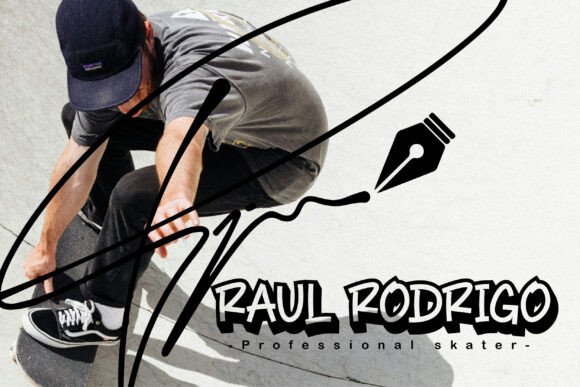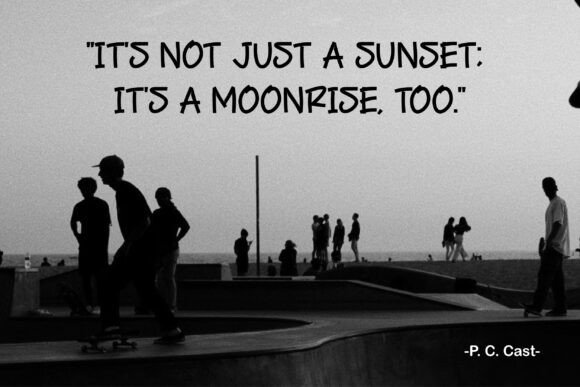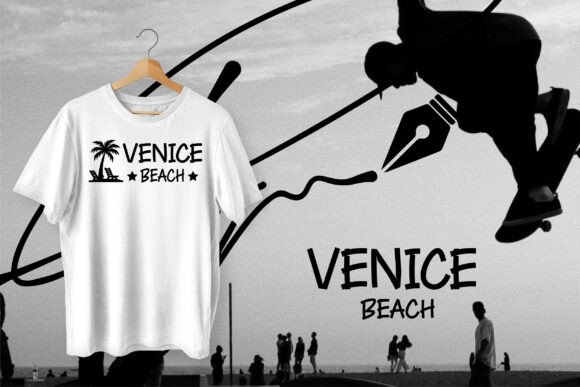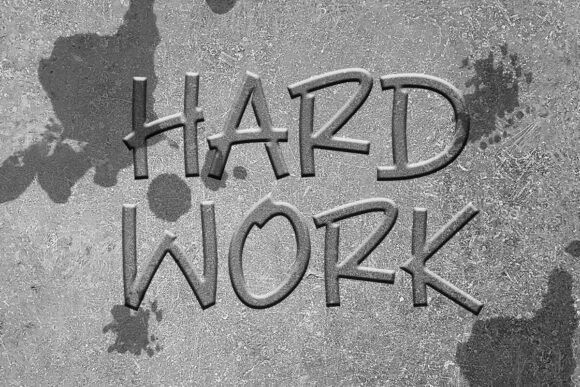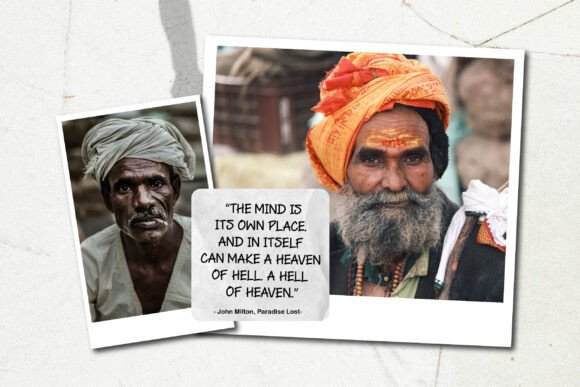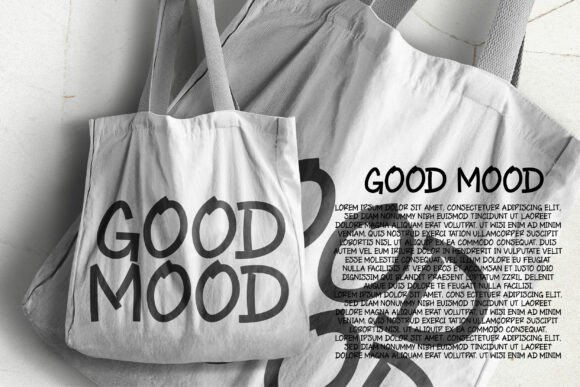
Introduction to Opf Marker Font
OPF Marker is a sophisticated bold display marker font that breathes life into a wide spectrum of your design initiatives.
This versatile font thrives in an extensive array of design environs and takes your works to the pinnacle of creativity It features a charismatic appeal that effortlessly embeds itself in items as varied as trendy stickers, trendy t-shirt graphics, captivating logo creations, book and magazine covers, and even comic or cartoon illustrations.